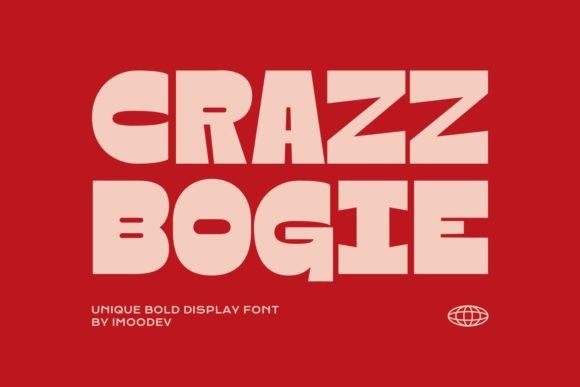
Prepare to be dazzled by Crazy Bogie, the ultimate font for food websites! This modern and chic display font will tantalize your taste buds and leave you craving more. Crazy Bogie is the perfect choice for creating mouthwatering menus, eye-catching social media posts, and irresistible packaging designs. Its playful and whimsical style will add a touch of fun and excitement to any food-related project.
With its bold and vibrant strokes, Crazy Bogie will make your words leap off the page and demand attention. This font is guaranteed to turn heads and leave a lasting impression on your audience. Whether you're a restaurateur, a food blogger, or simply a passionate foodie, Crazy Bogie is the font you need to take your culinary creations to the next level.
So why settle for ordinary fonts when you can have Crazy Bogie? This incredible font will transform your food website into a feast for the eyes. Its unique and unforgettable style will have your visitors salivating for more. Don't miss out on this opportunity to elevate your food website and make it the talk of the town. Download Crazy Bogie today and let the deliciousness begin!